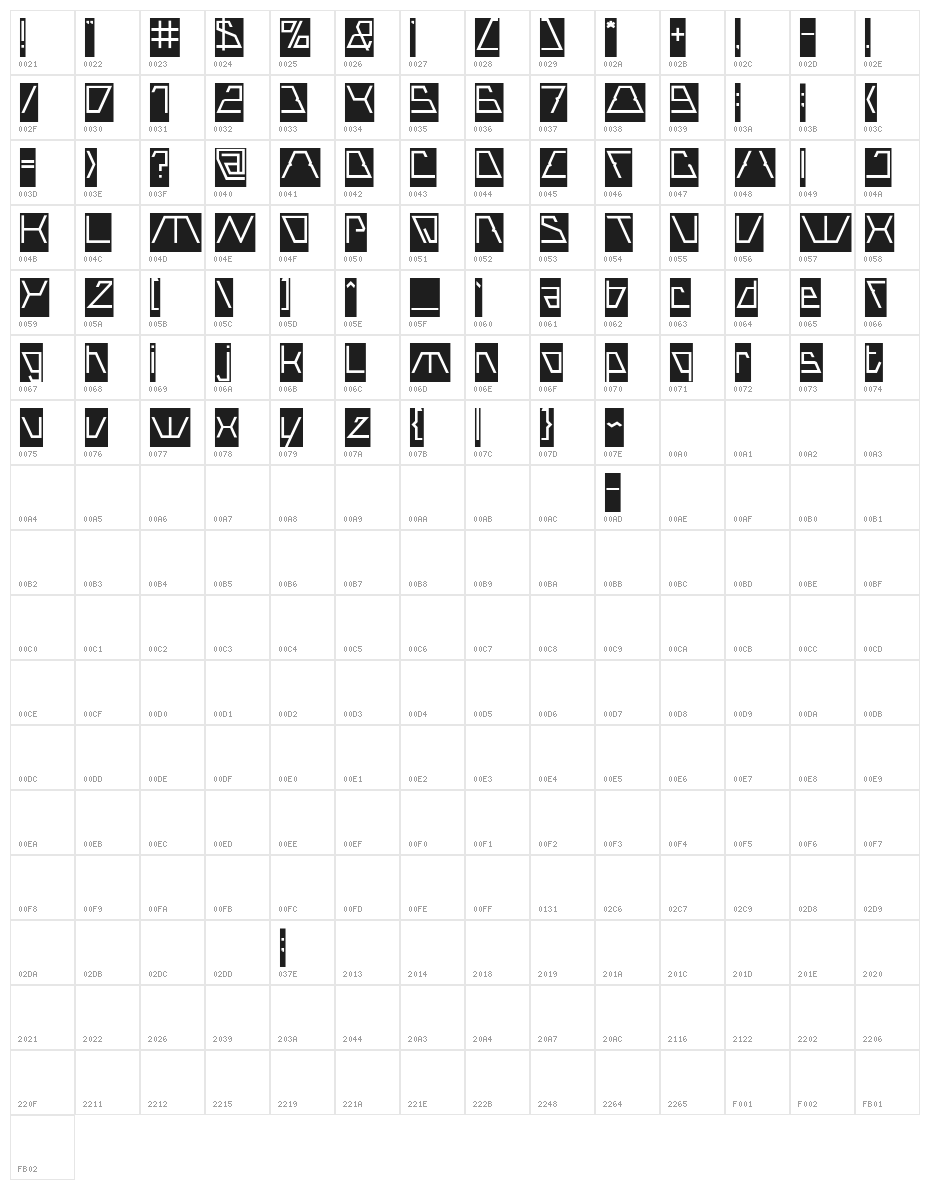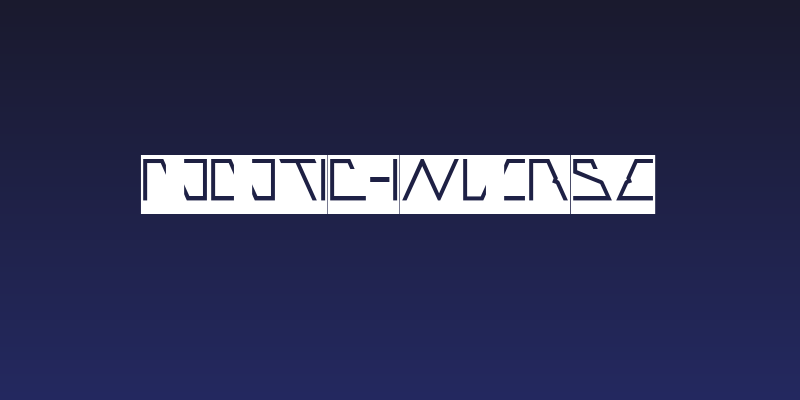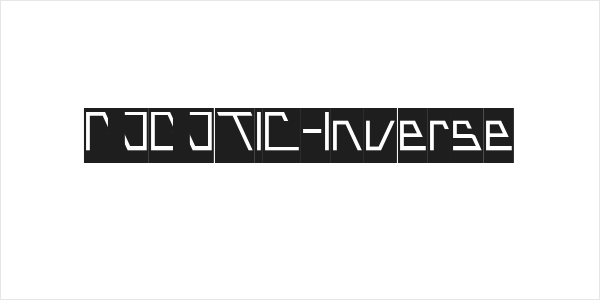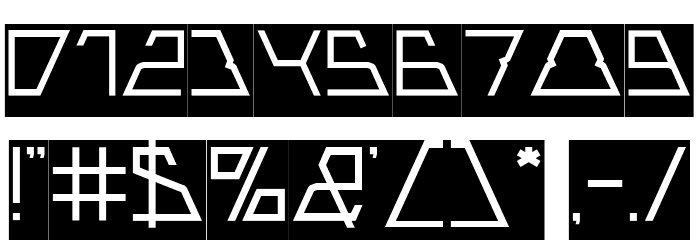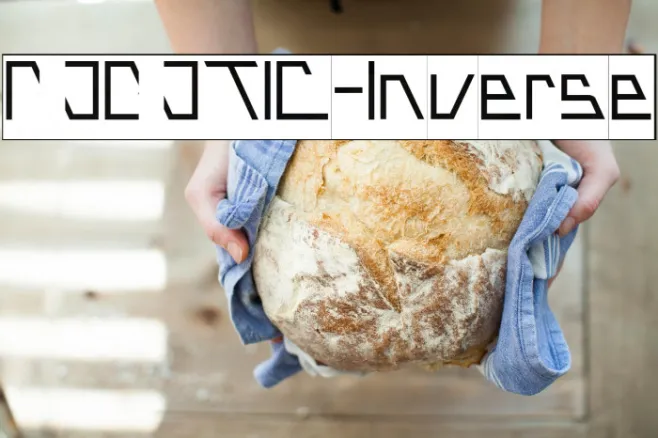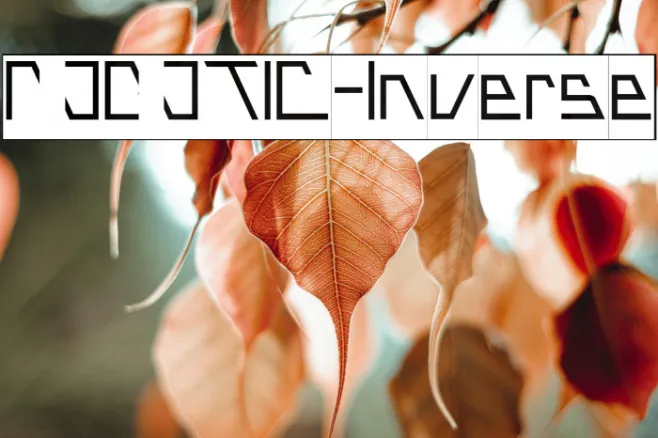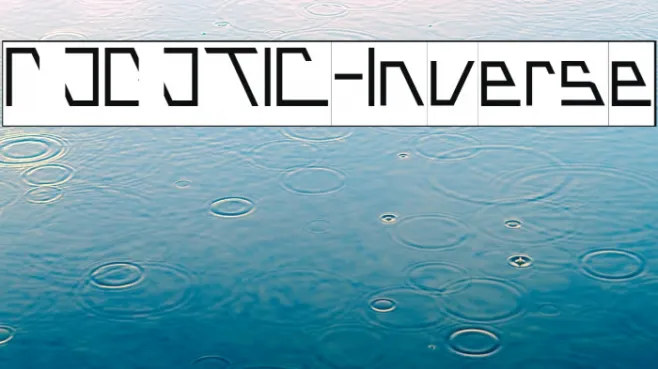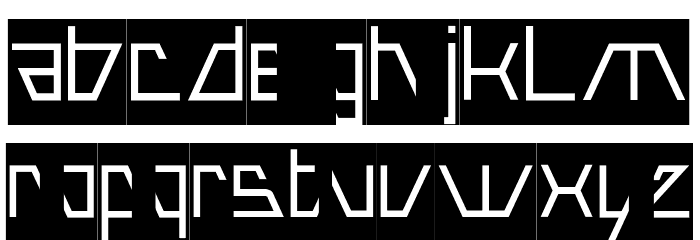
ROBOTIC-Inverse Font
ROBOTIC-Inverse Description
This font features a futuristic and angular design, characterized by its sharp, geometric shapes and distinct cut-out sections. The letters and numbers are constructed with bold, straight lines and acute angles, giving it a robotic and mechanical appearance. The uppercase and lowercase letters maintain a consistent style, with a uniform height and width that enhances its modern aesthetic. The numerals and special characters follow the same design principles, ensuring a cohesive look across all characters. This font's unique style makes it stand out, ideal for projects that require a tech-inspired or avant-garde feel.